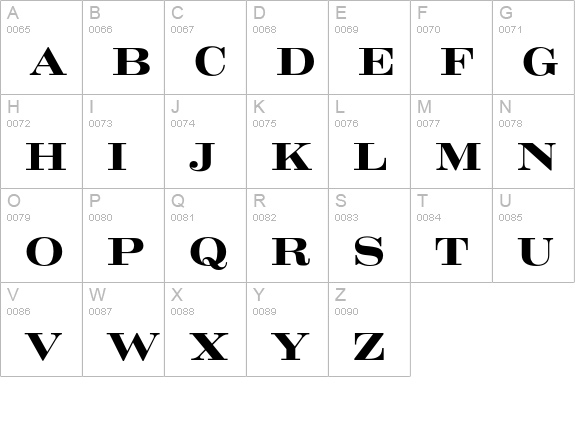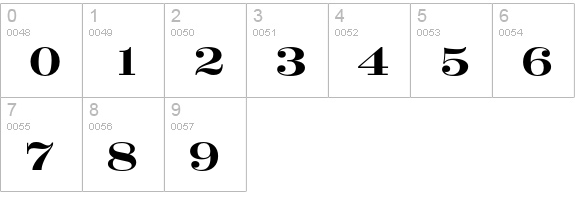
FC-CrawModern-Bold is a strong, high-contrast variant in the FC typeface family \xE2\x80\x94 well suited to headlines, attention-grabbing titles, and strong calls-to-action.
FC-CrawModern-Bold is a bold and modern display font that exudes confidence and strength. With clean lines and a contemporary aesthetic, this font is perfect for making a bold statement in any design project. Whether you're creating posters, logos, or branding materials, FC-CrawModern-Bold will add a touch of sophistication and style. What makes FC-CrawModern-Bold even more appealing is that it is available for free download at FontsMarket.com. This means that you can easily access this stunning font and use it in your projects without any cost. Don't miss out on the opportunity to elevate your designs with the sleek and impactful FC-CrawModern-Bold font. Download it today and watch your creations come to life!